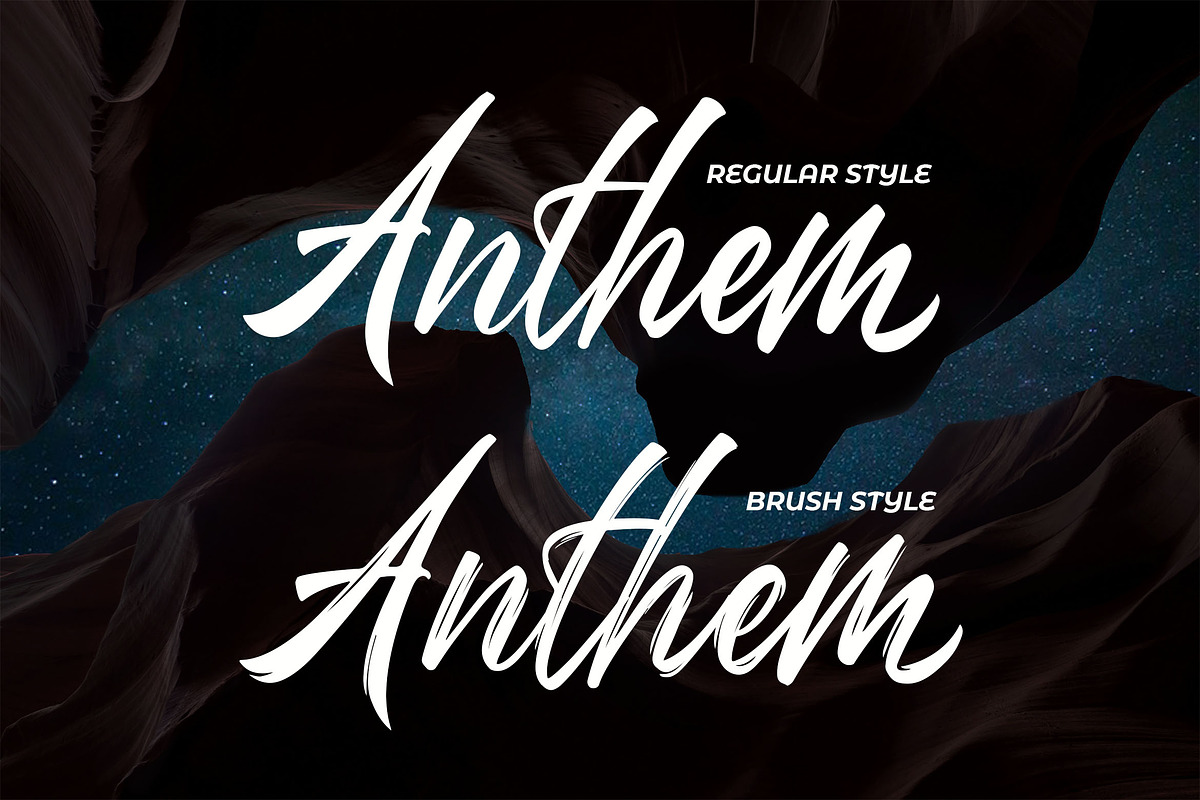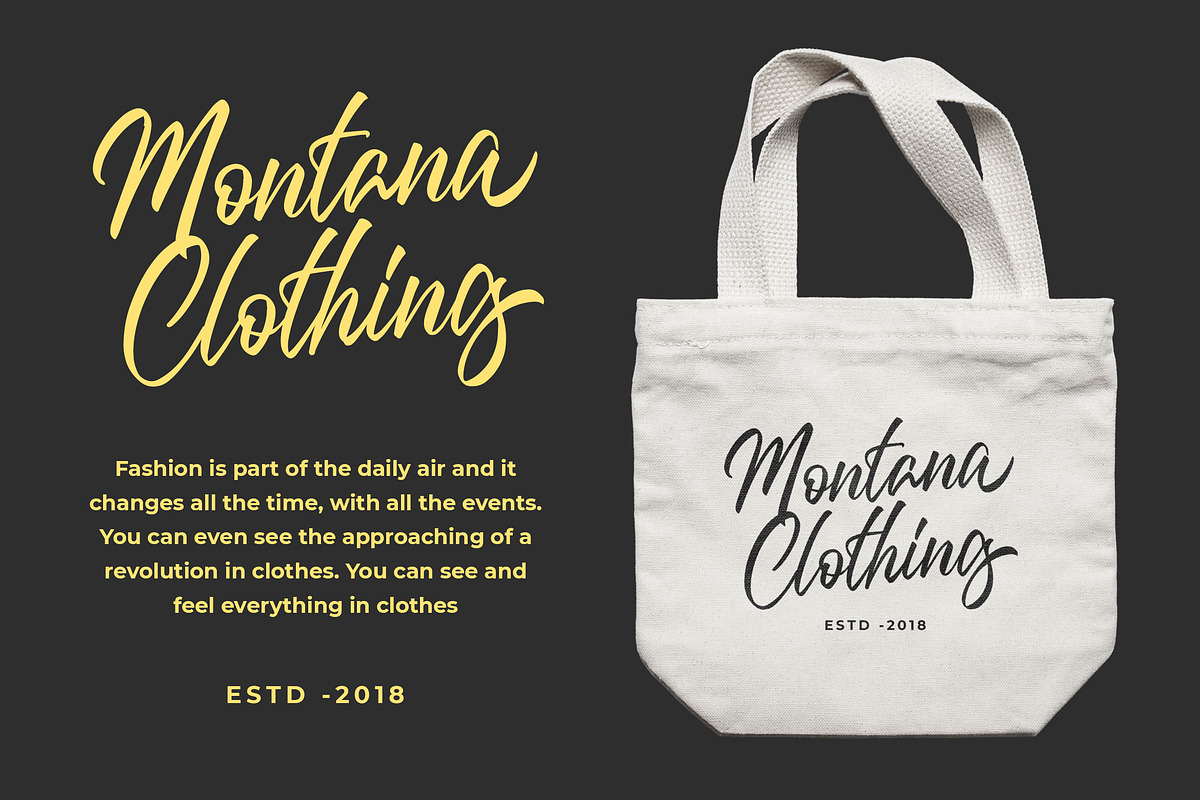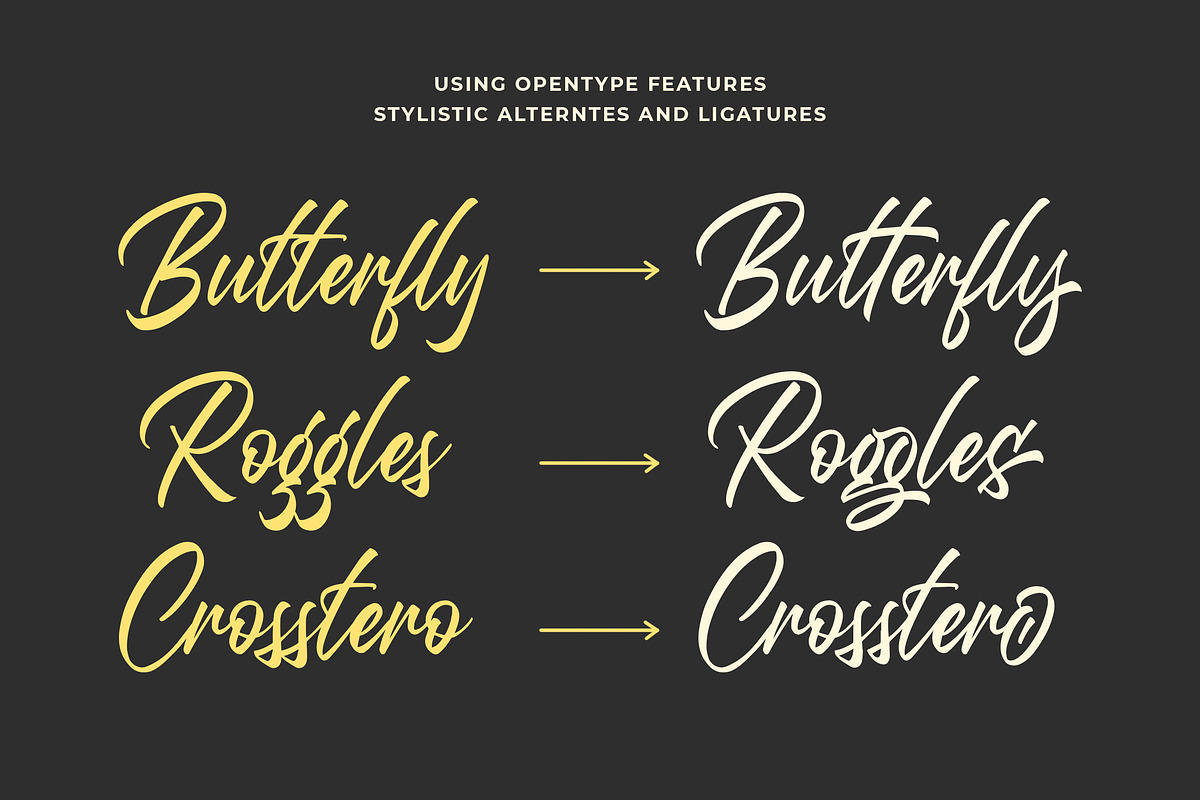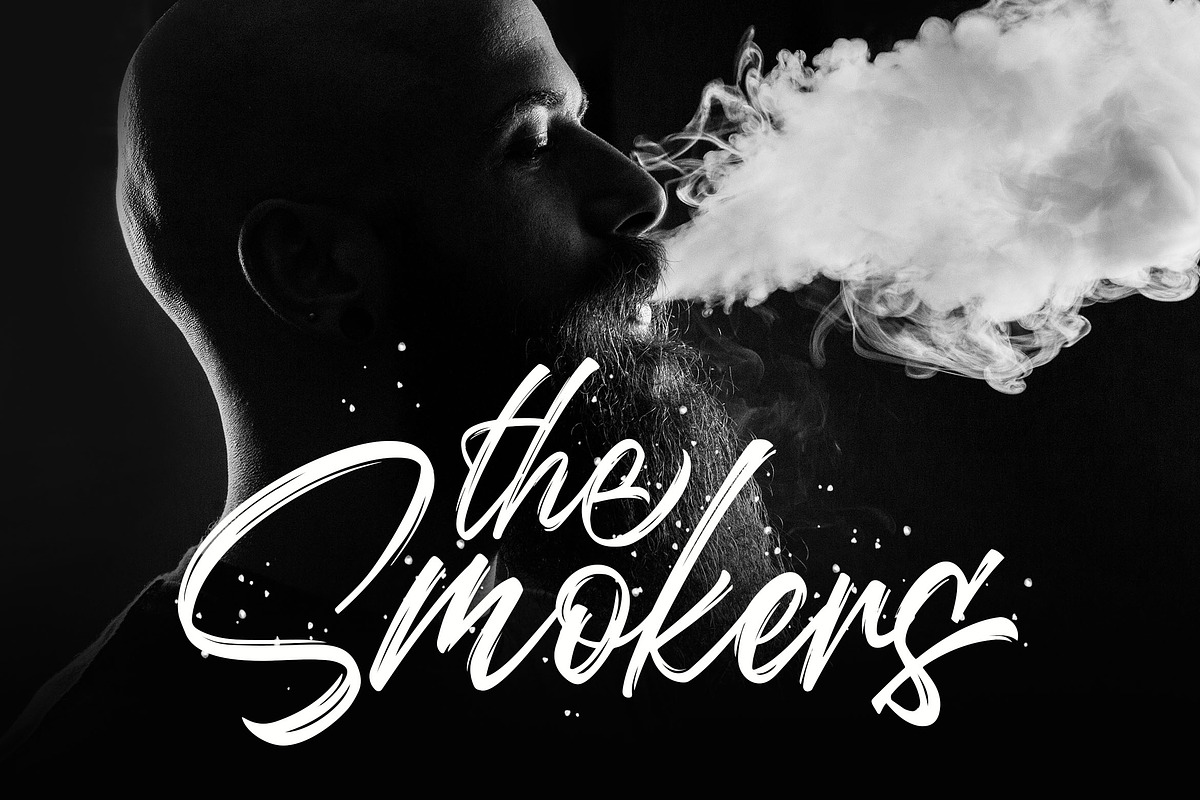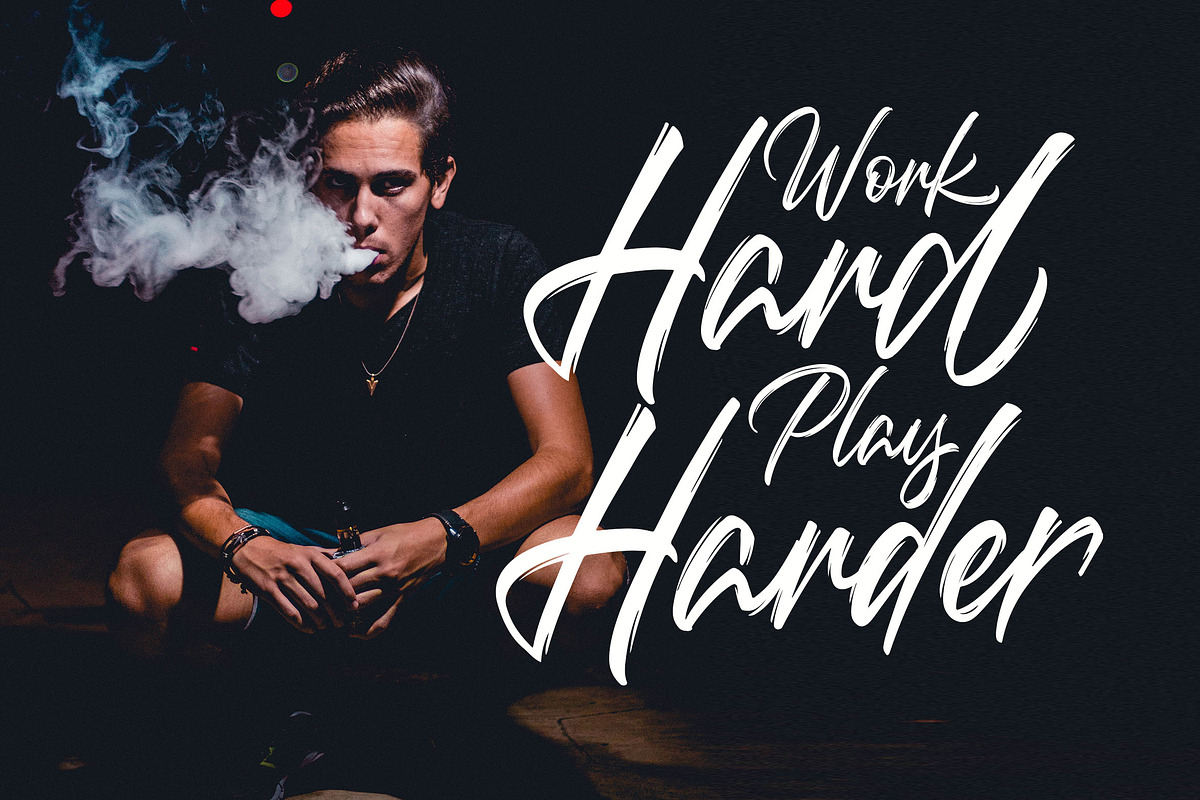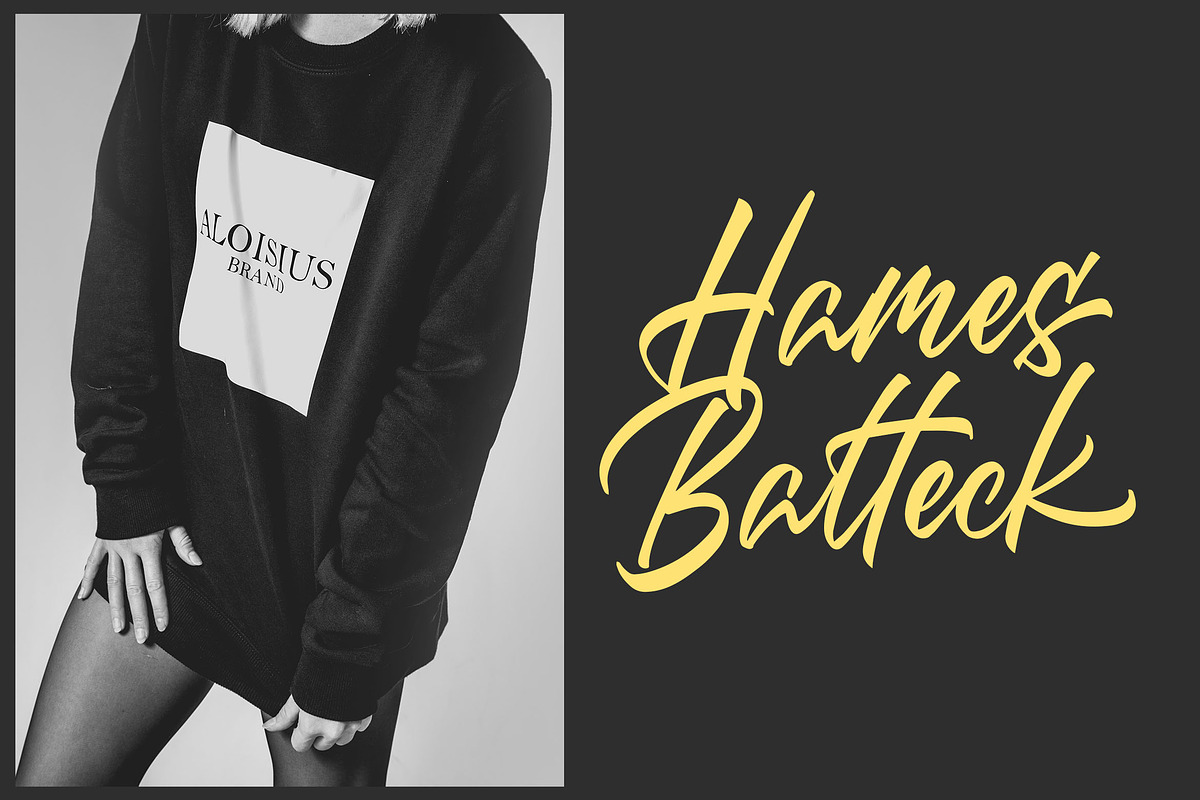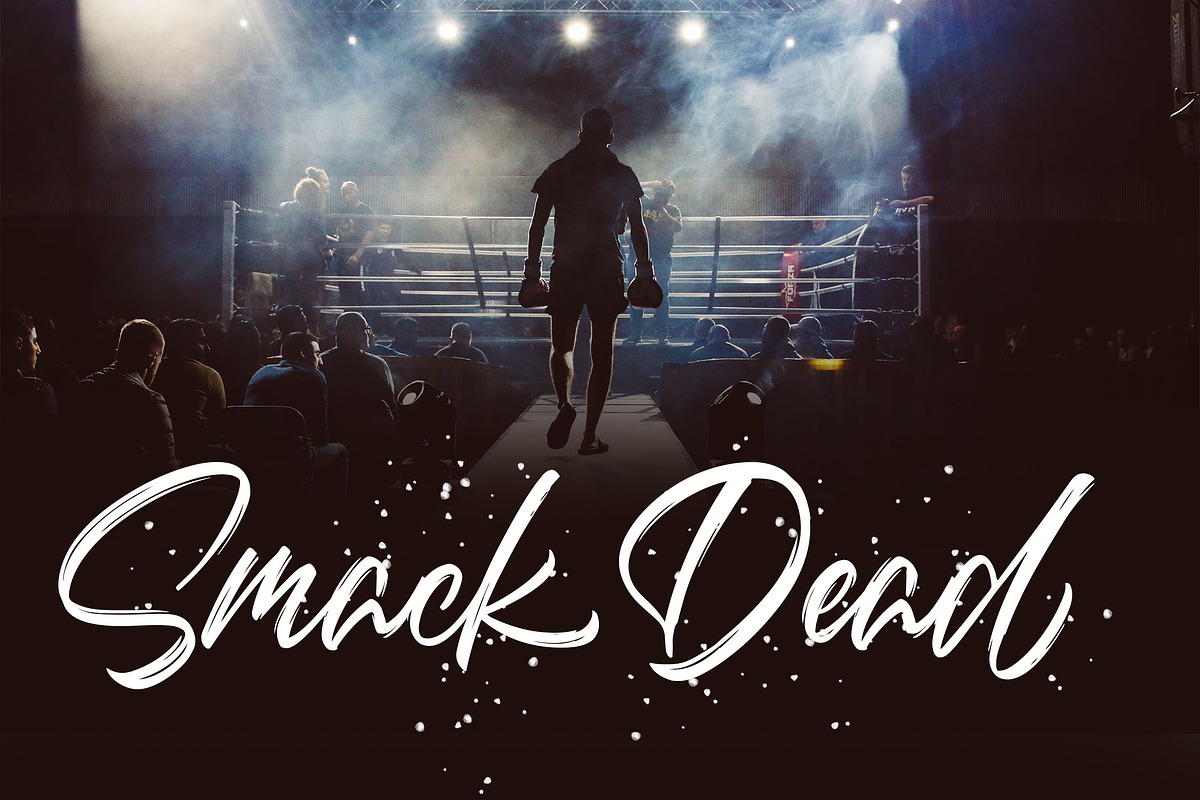
Introducing of our new product the name is Questario Brush Style Font. Questario Brush inspired by Brush calligraphy this font is a fun theme very good for signature, poster, fashion, wedding, branding etc
- Questario Regular
- Questario Brush